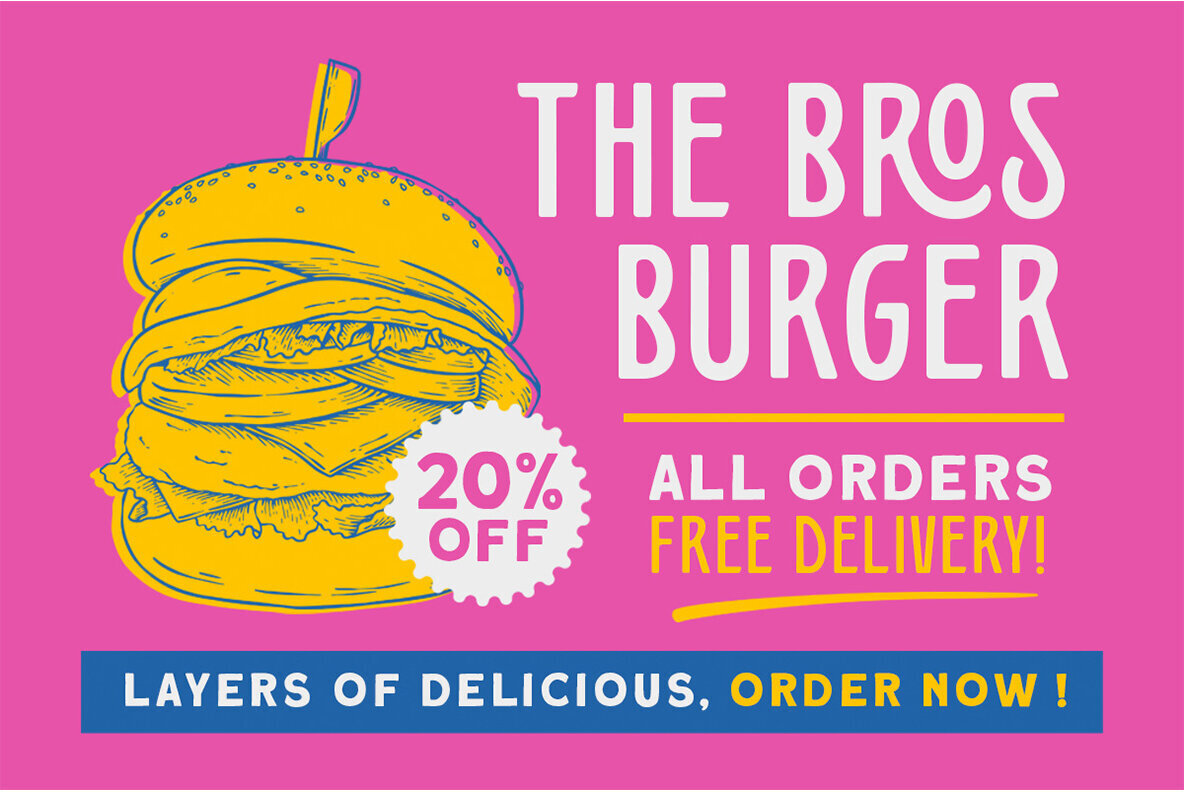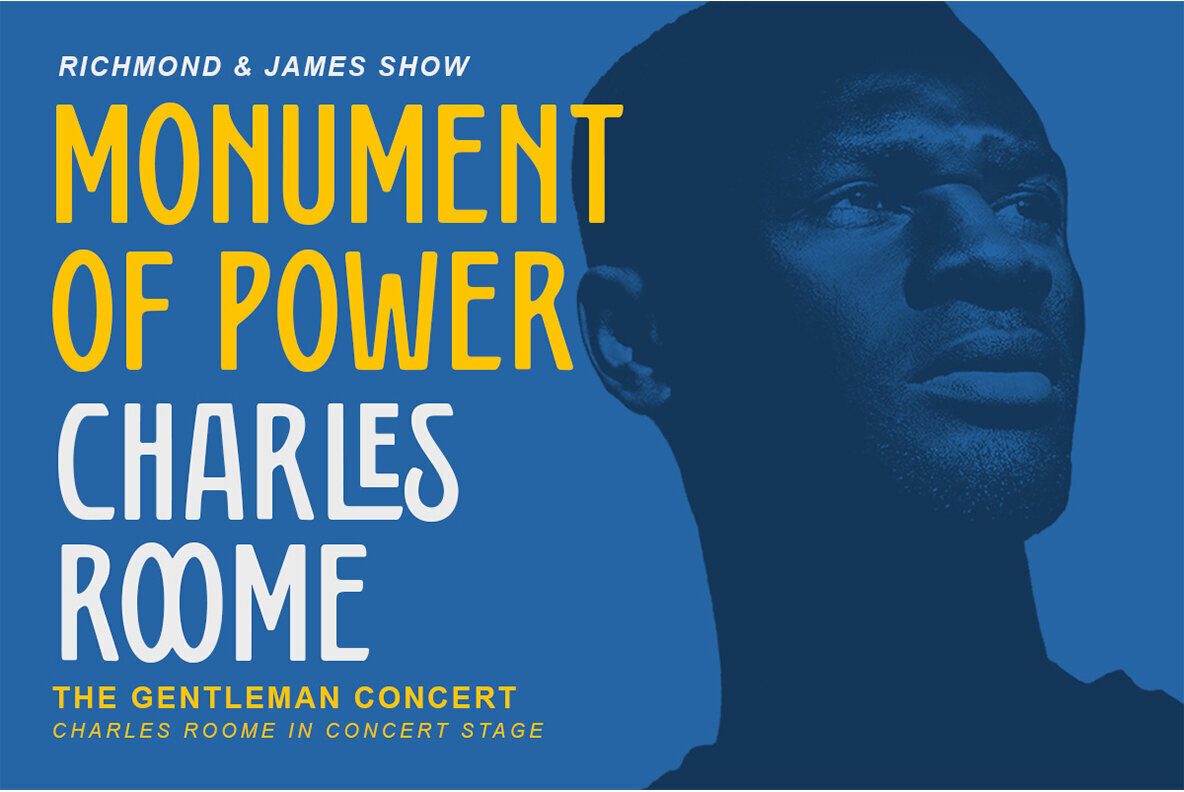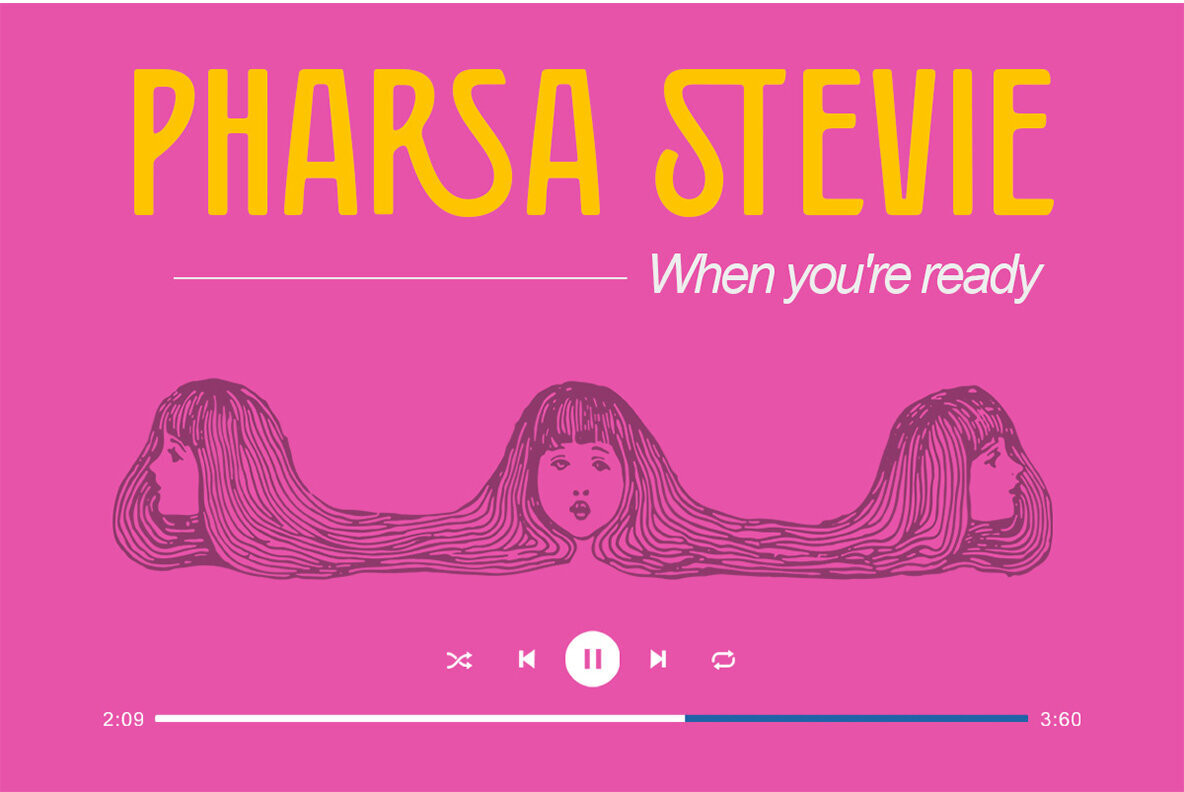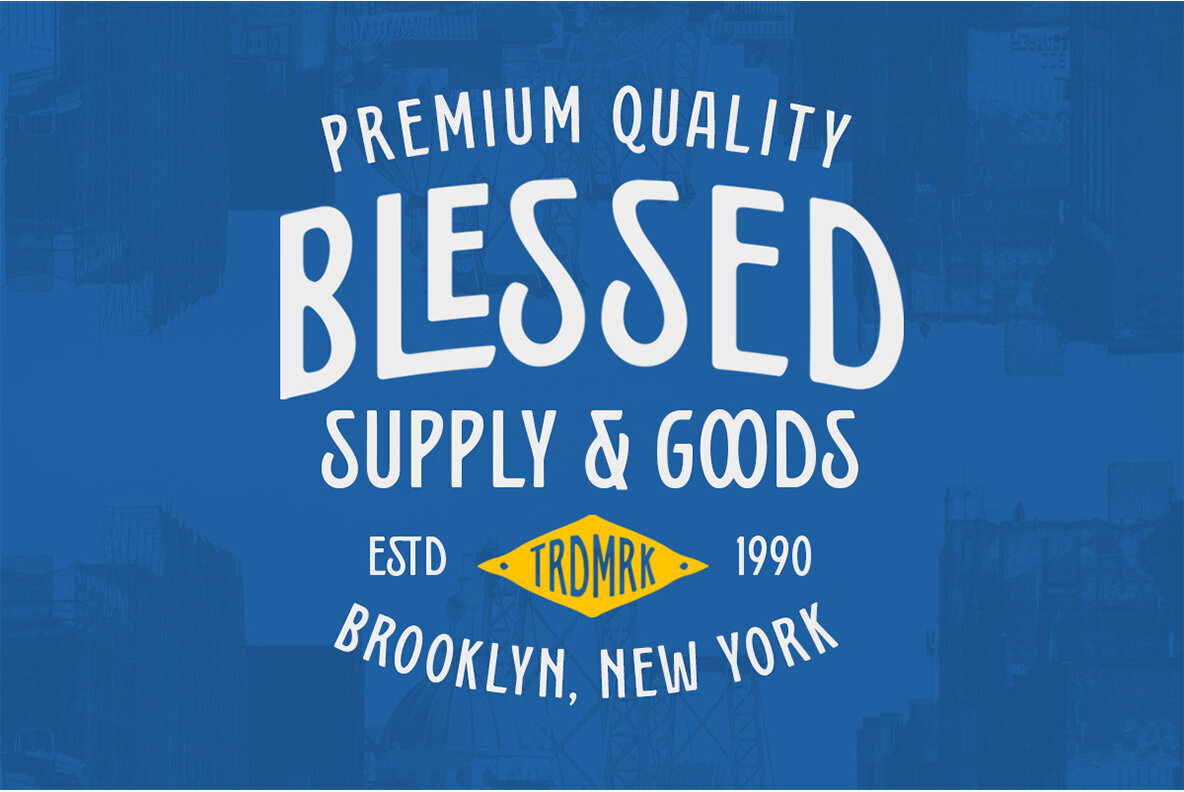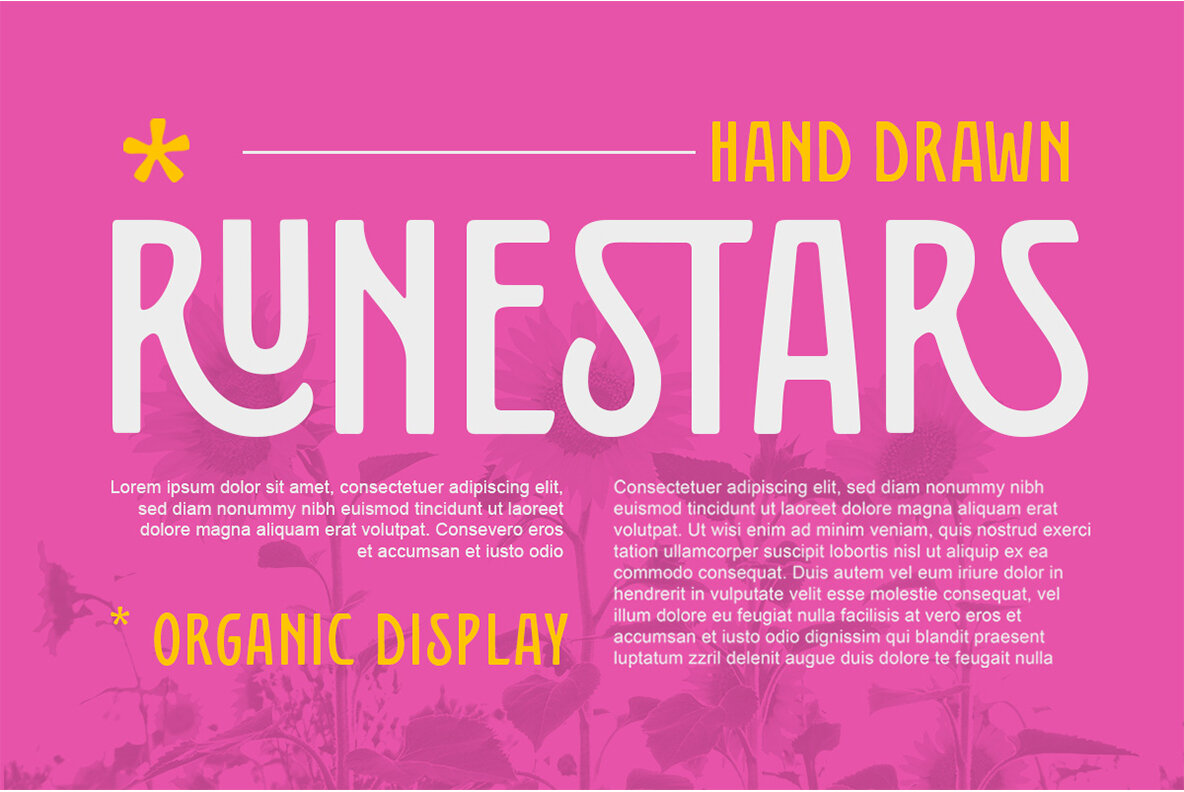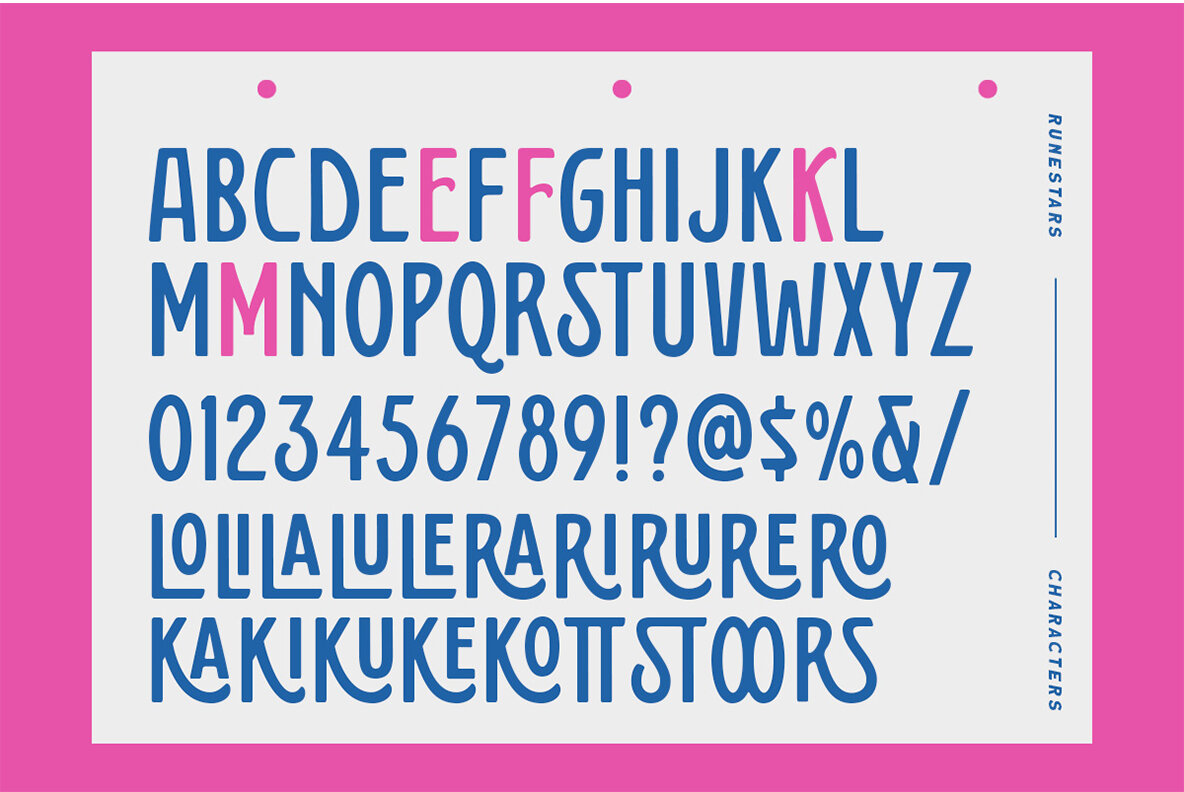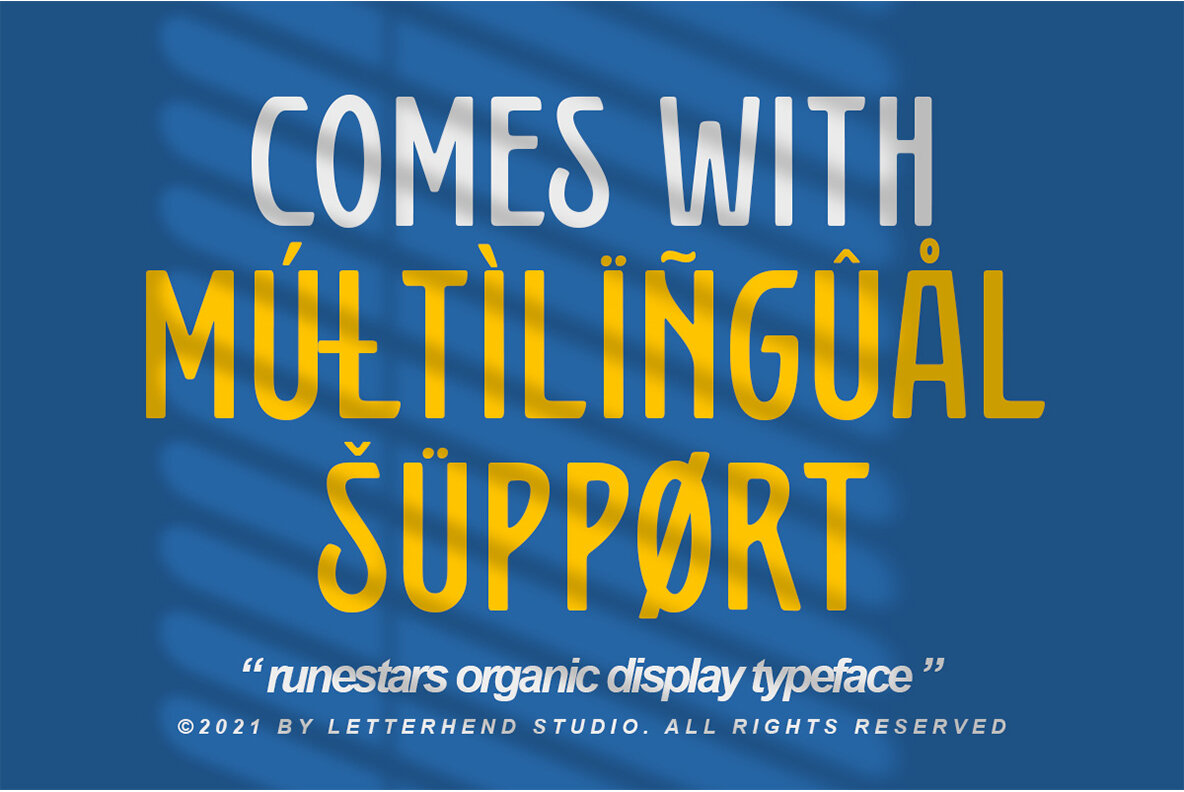
Runestars Font
The allure of hand-lettered typography is undeniable in RuneStars, an organic display typeface etched with distinctive ligatures. Its compelling character and natural aesthetics stem from its creation through manual hand lettering, lending it a unique appeal that stands out in design projects. RuneStars is particularly suited for logos and a myriad of formal applications, including invitations, magazines, books, and greeting cards. Whether you're crafting a sophisticated wedding invitation or designing eye-catching product packaging, this typeface complements various advertising purposes. Its versatility extends to the realms of fashion and stationery, making it a valuable asset for professionals in creative fields. For optimal use of RuneStars, we recommend programs that support OpenType features and Glyphs panels, such as Adobe applications and Corel Draw. Access to such tools will allow you to fully explore the font's potential through its diverse glyph variations.RuneStars: Handcrafted Organic Display Typeface